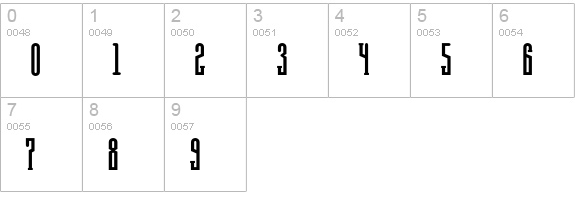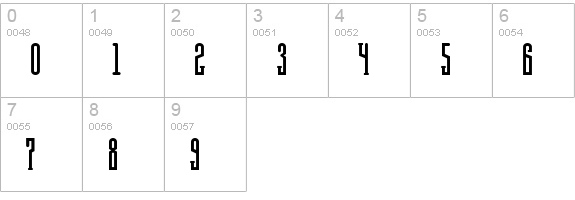
Ambu-Bold is a strong, high-contrast variant in the Ambu typeface family \xE2\x80\x94 well suited to headlines, attention-grabbing titles, and strong calls-to-action.
Introducing Ambu-Bold font, a versatile and modern typeface designed to make your text stand out with its bold and commanding presence. The Ambu-Bold font features a sleek and sophisticated design that is perfect for headlines, titles, and any other text that needs to make a statement. Its clean lines and strong strokes give it a striking appearance that is sure to capture attention. What sets Ambu-Bold font apart is not only its bold aesthetics but also its accessibility - it is available for free download at FontsMarket.com. This means that you can easily incorporate this eye-catching font into your projects without any cost, making it a valuable addition to your design toolkit. Whether you're working on a print publication, digital design, or branding project, Ambu-Bold font is a versatile option that will elevate your text and leave a lasting impression. Download Ambu-Bold font today and take your typography to the next level.